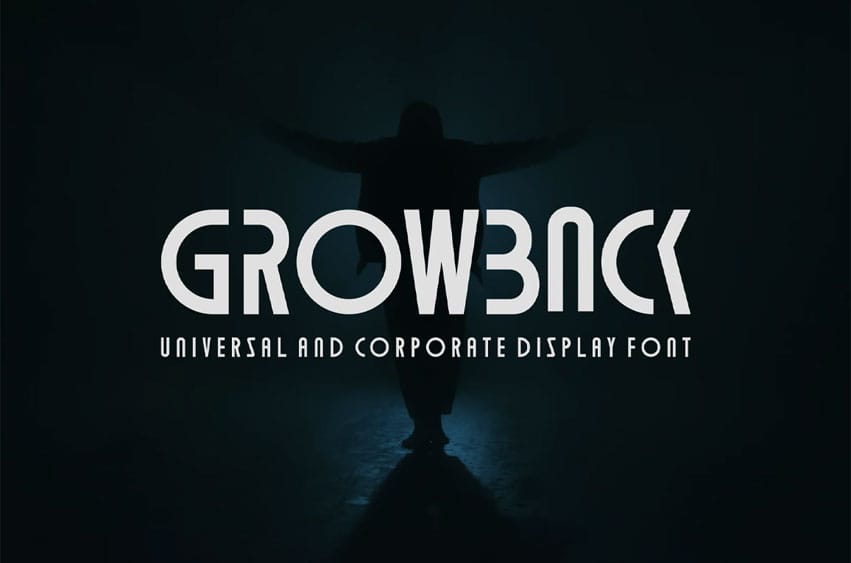
Growback Font Universal And Corporate Display Font is a bold and authentic display font.
The font is suitable for any branding project like logo, esport, and many more. outstanding in a wide range of contexts.